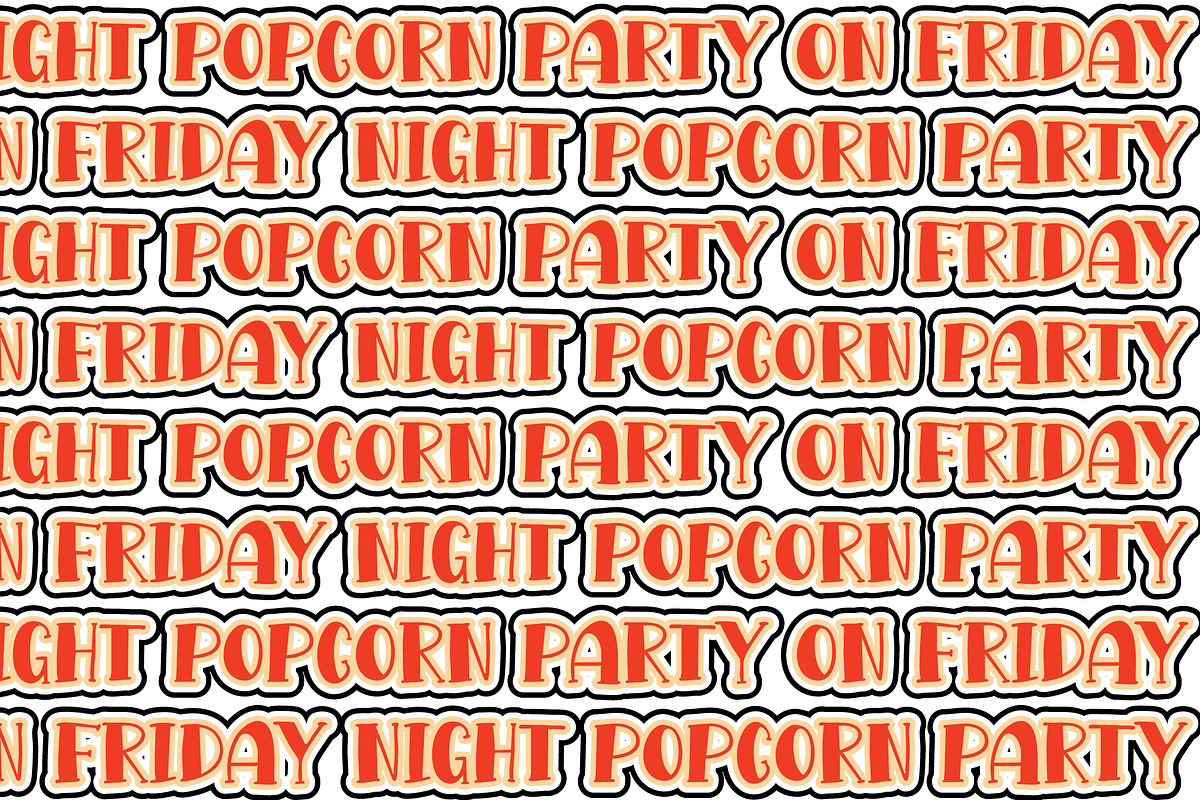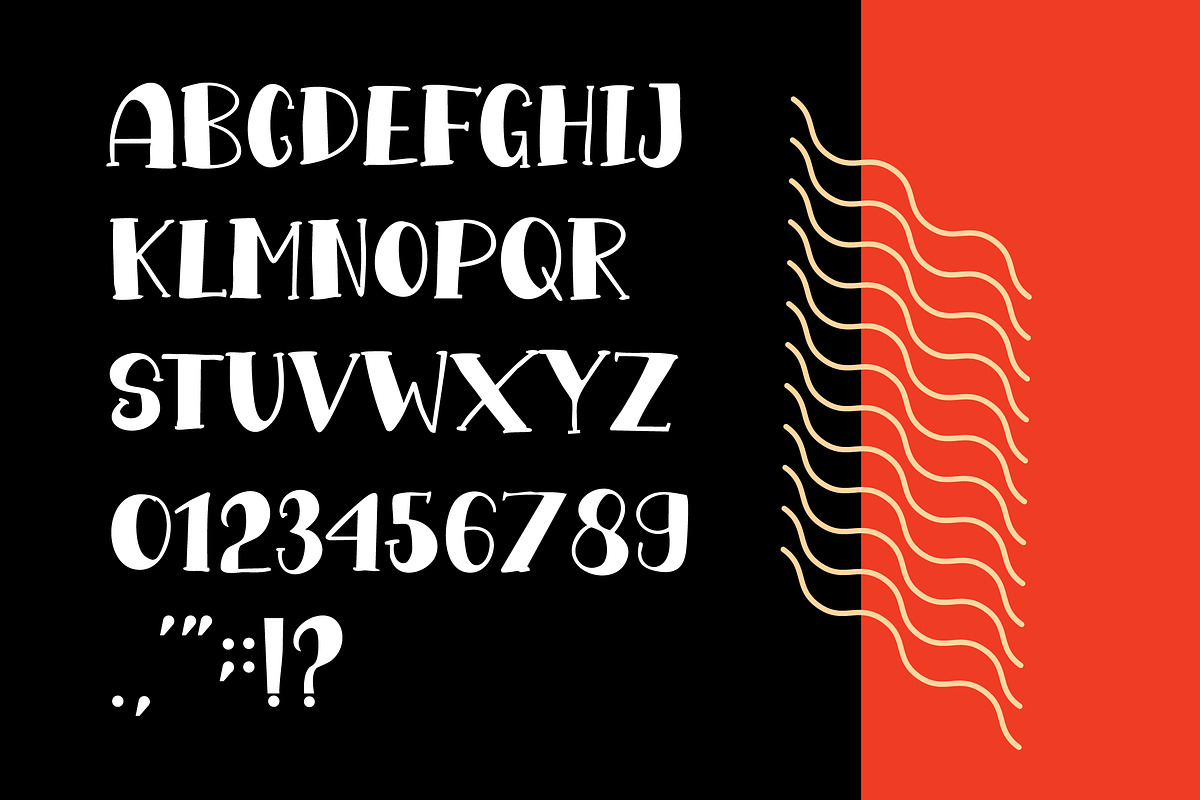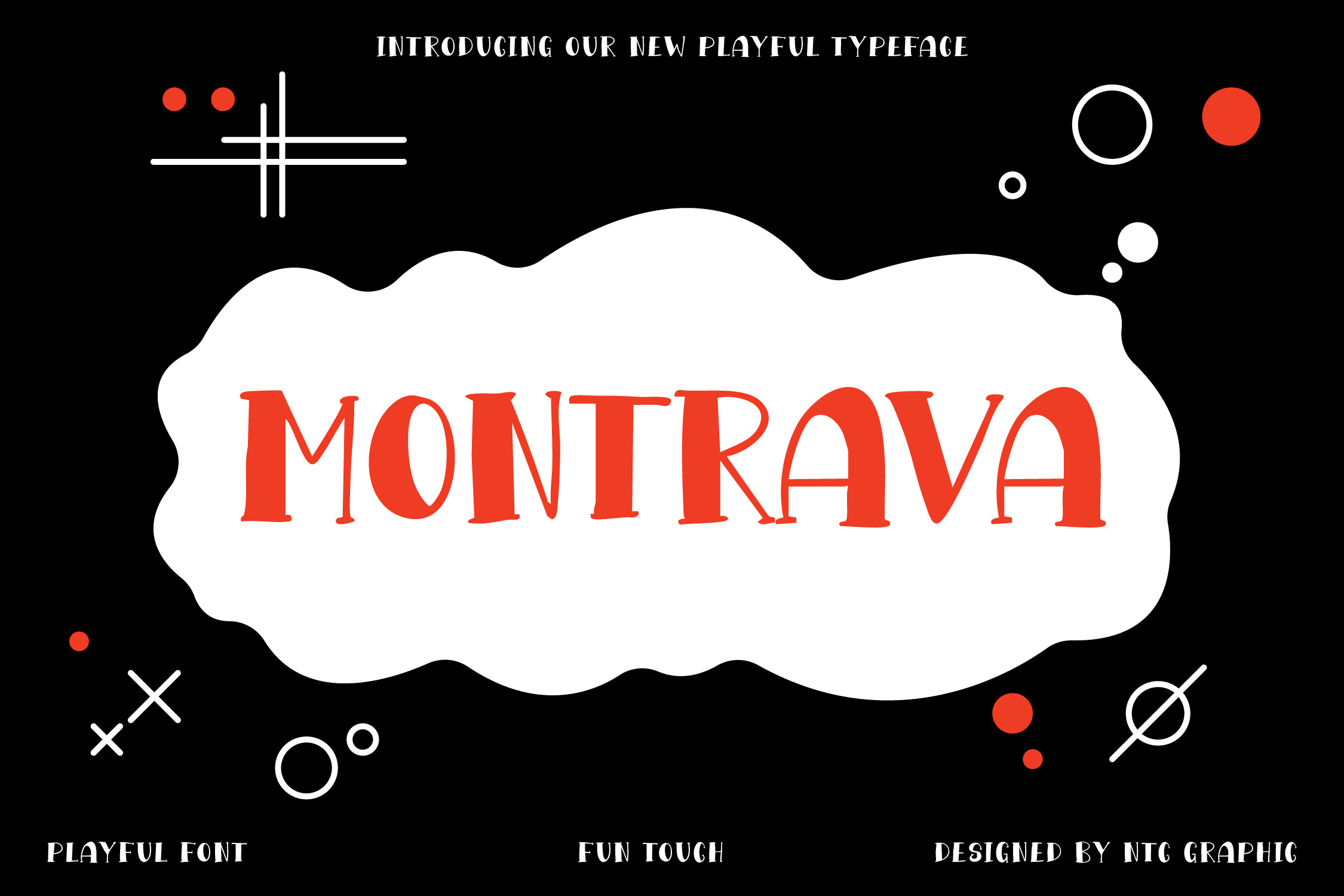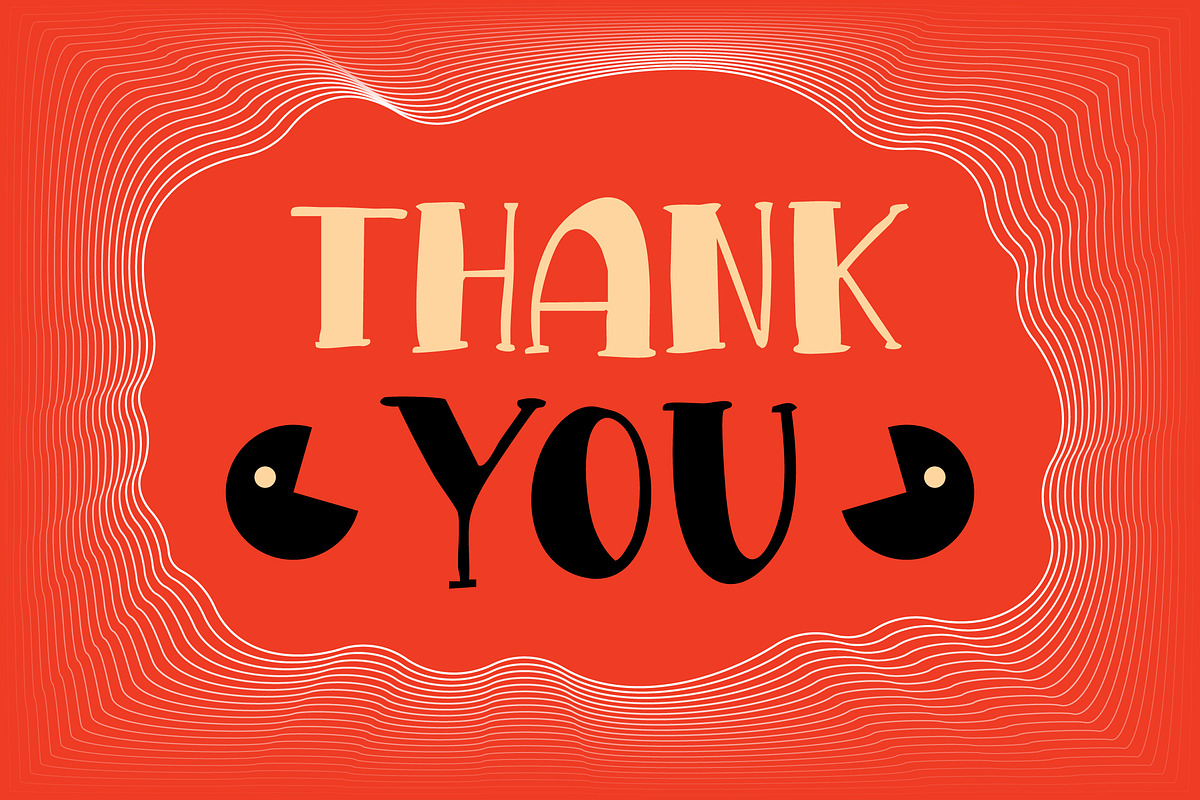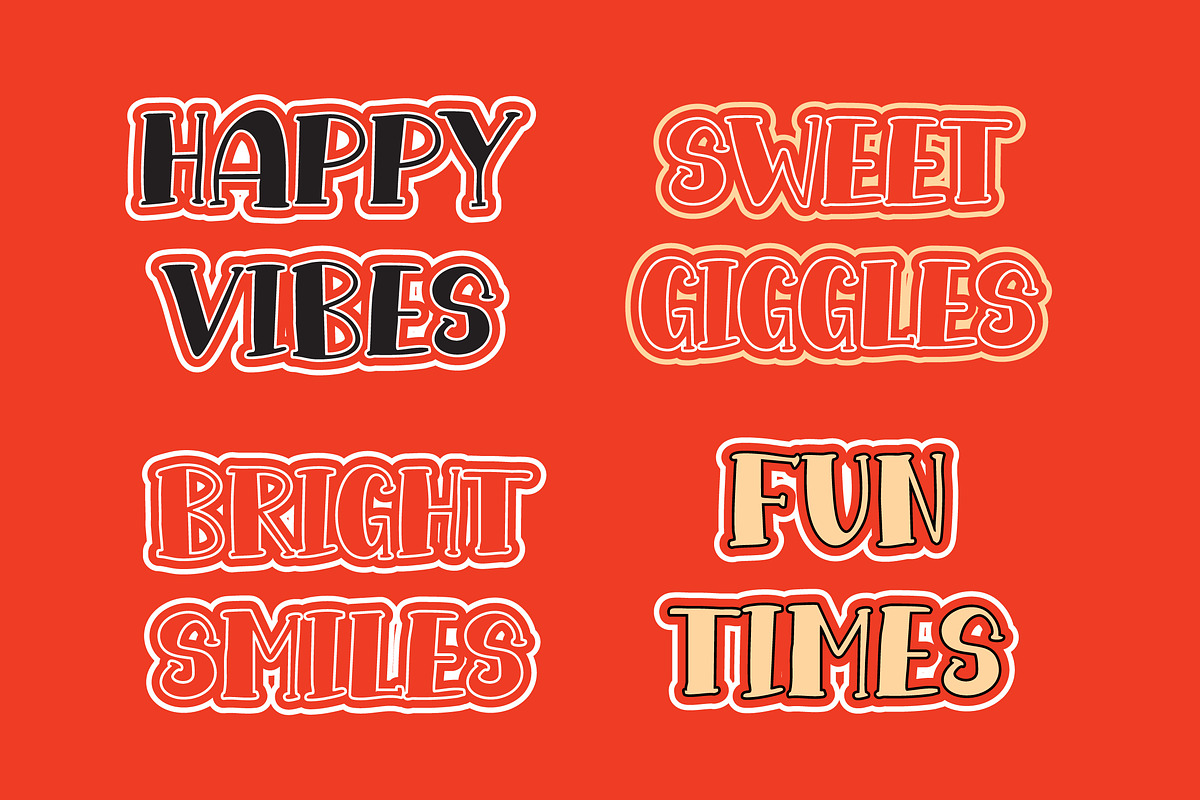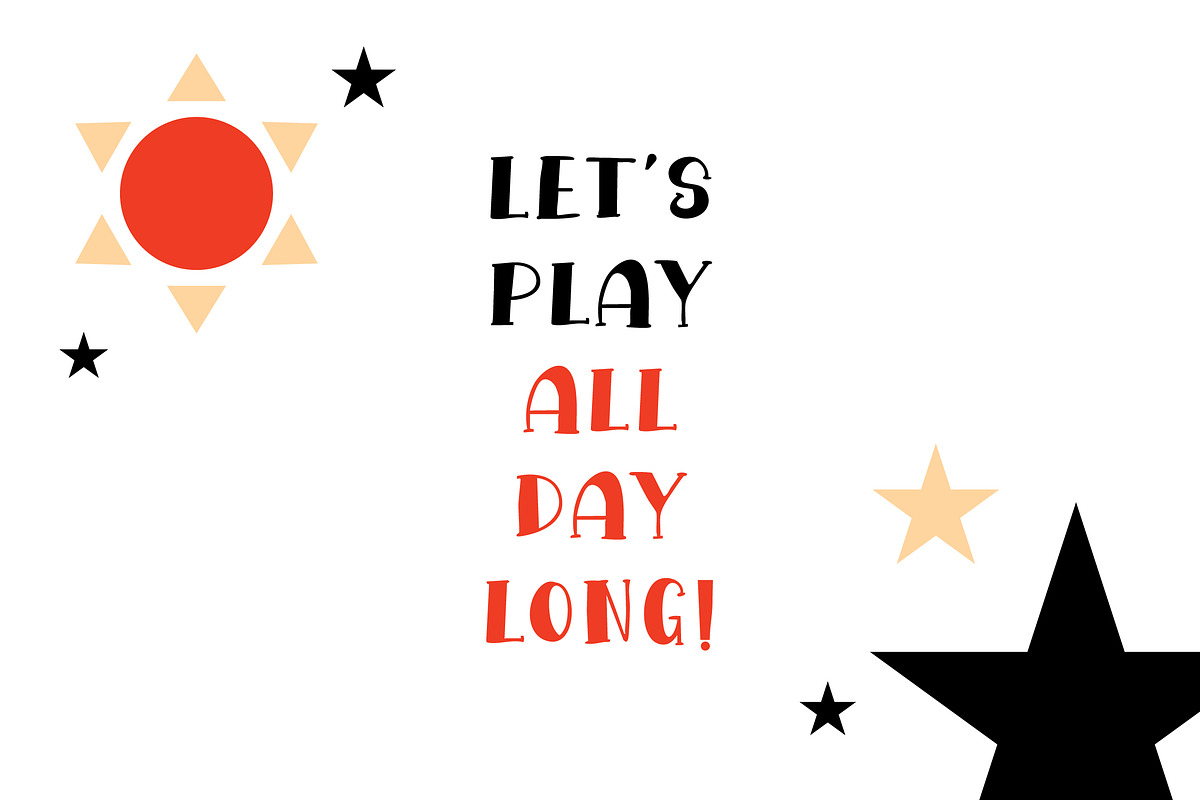
MONTRAVA Playful Display Font
MONTRAVA Playful Display Font is a bold and expressive typeface designed to capture attention with its unique, handcrafted character. Featuring slightly irregular shapes, artistic curves, and a fun retro-inspired display style, MONTRAVA delivers a strong visual impact while maintaining a playful and approachable feel. The distinctive letterforms make it perfect for craft products, statement quotes, t-shirt designs, merchandise, posters, and creative branding that needs personality and charm. Its decorative yet readable style gives your designs a lively, standout presence—ideal for projects that aim to be fun, artistic, and memorable.